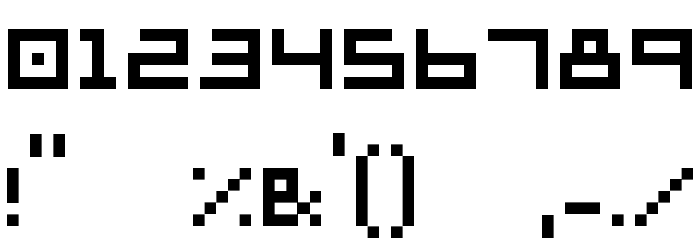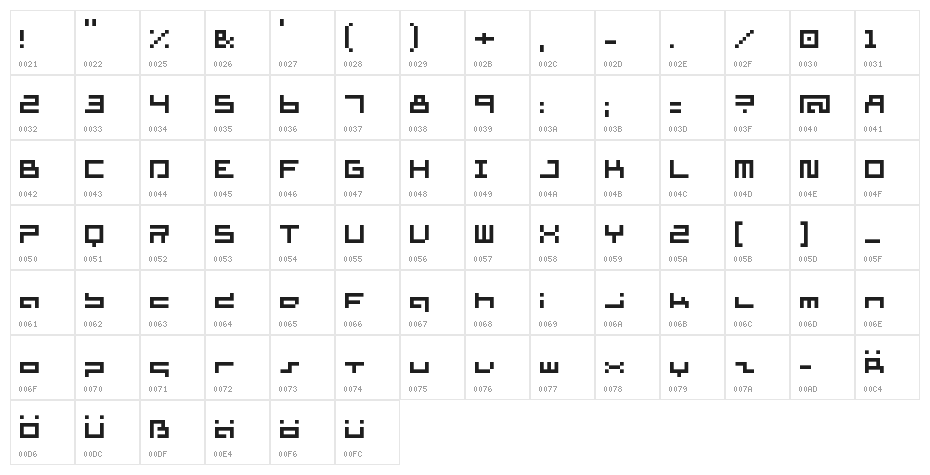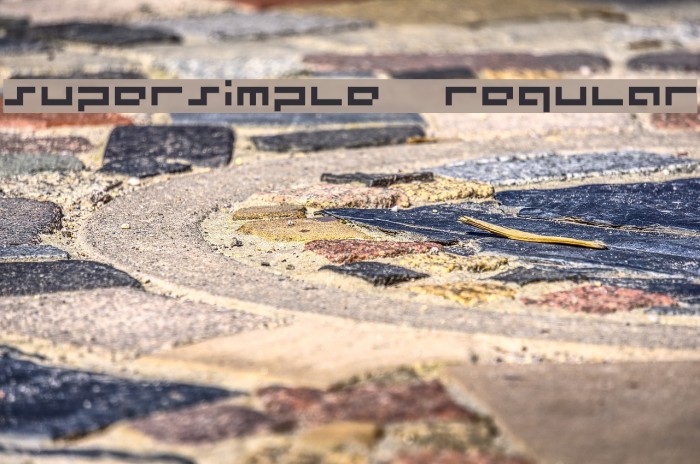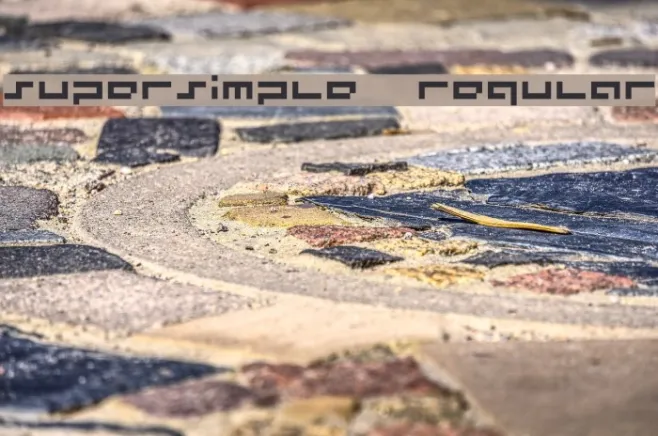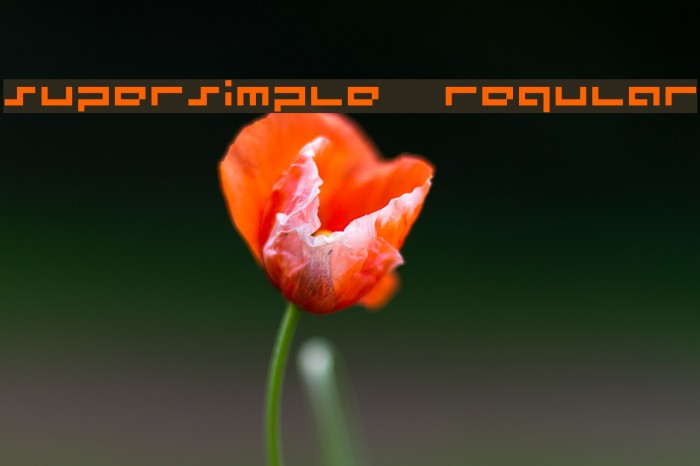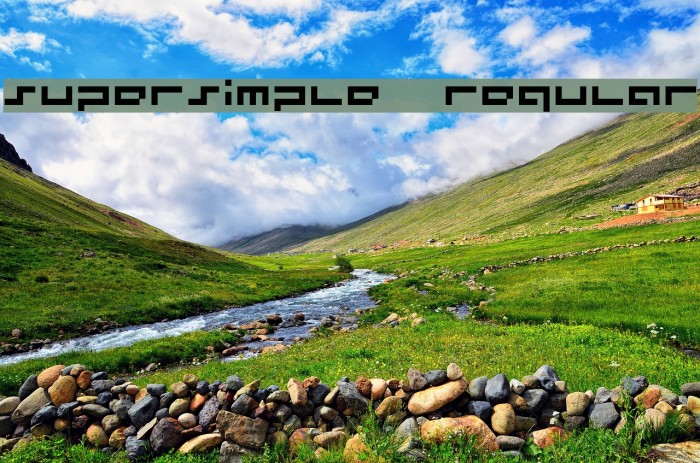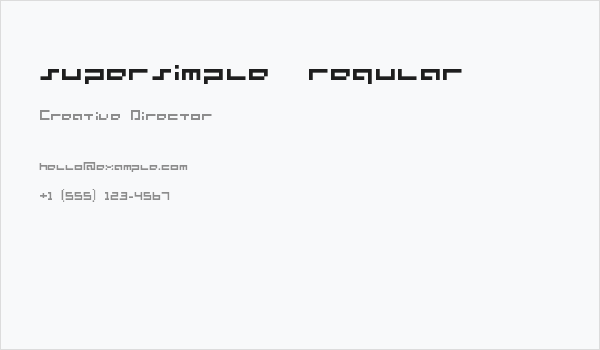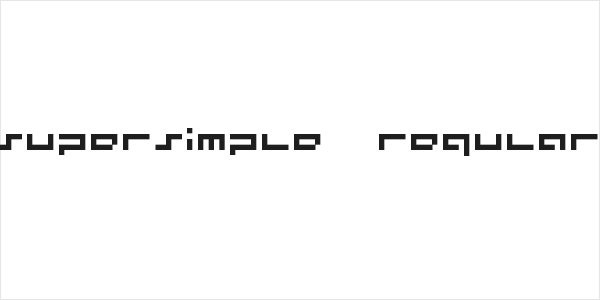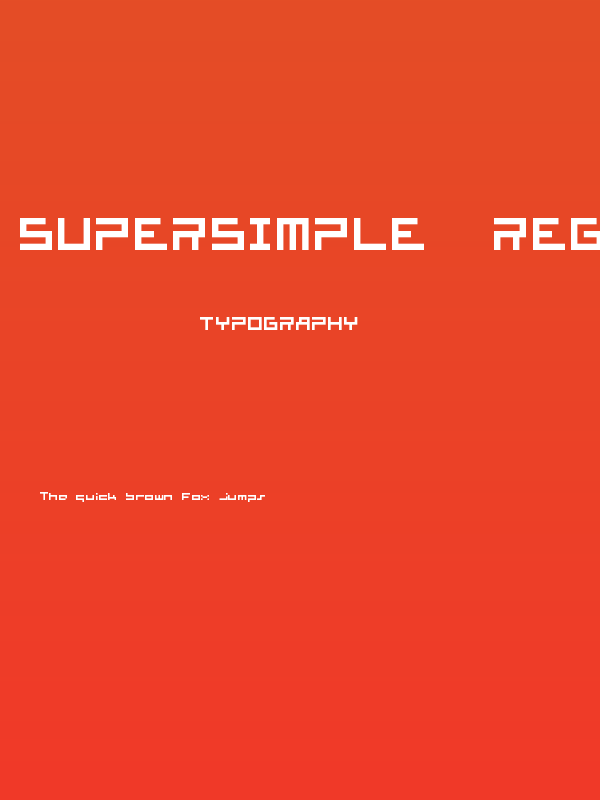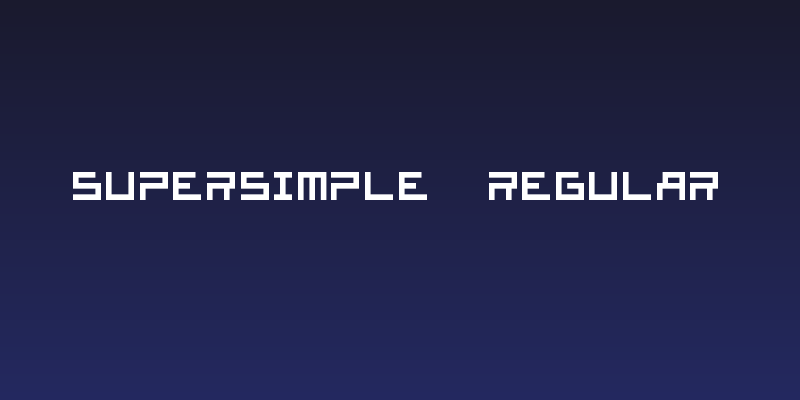
supersimple regular Font
supersimple regular Description
This font features a blocky, pixelated design reminiscent of early digital displays and retro video games. Each character is constructed with uniform, straight lines and right angles, giving it a distinctly geometric appearance. The uppercase and lowercase letters maintain a consistent height, contributing to a clean and orderly aesthetic. Numbers and special characters follow the same design principles, ensuring visual harmony across all glyphs. The font's simplicity and clarity make it highly legible, even at smaller sizes, while its unique style adds a touch of nostalgia and modernity.
| Proposed Projects | Ideal for video game design, tech-themed posters, digital art projects, and retro-style branding. |